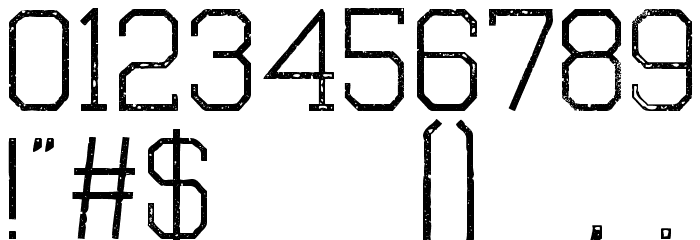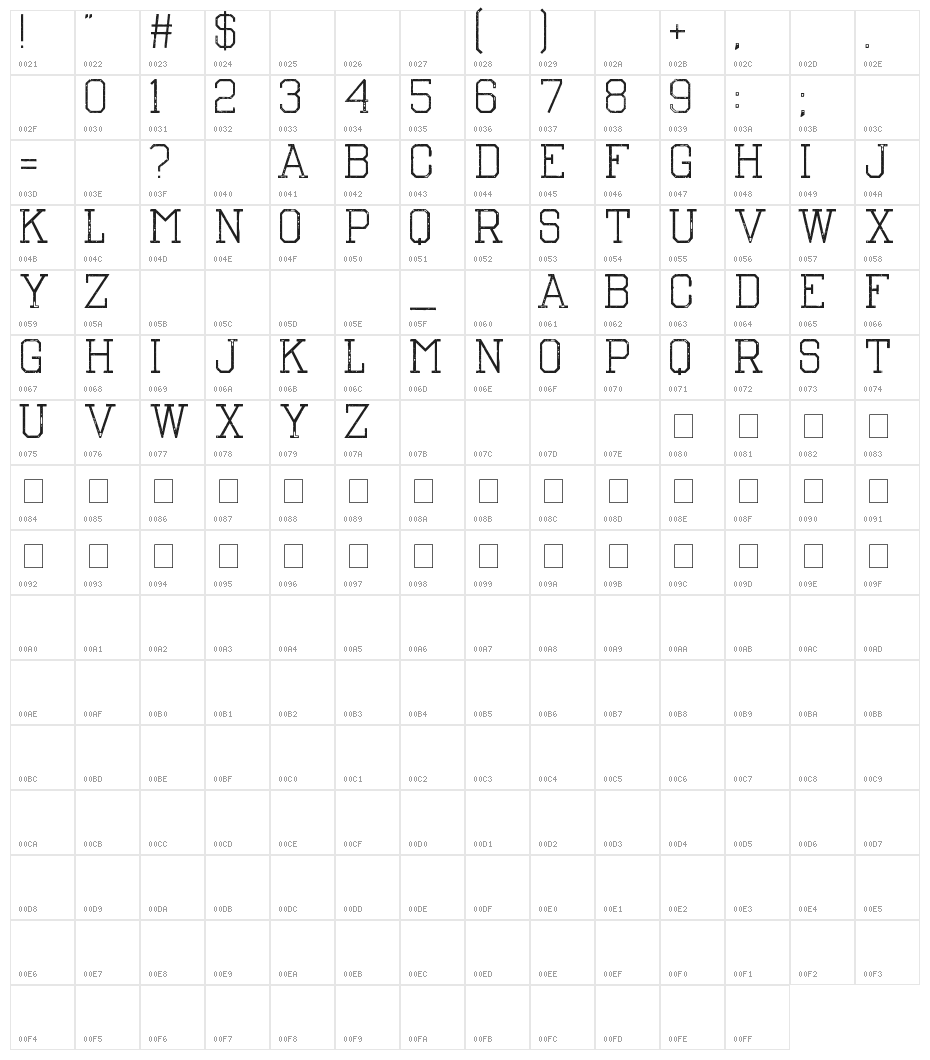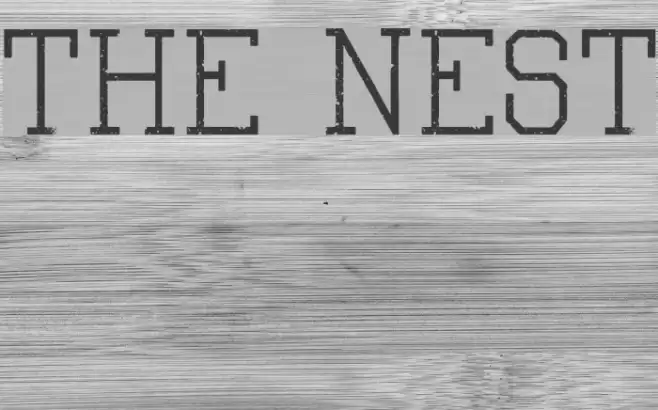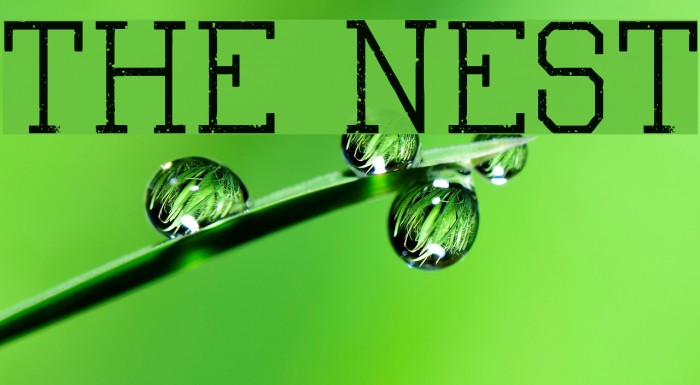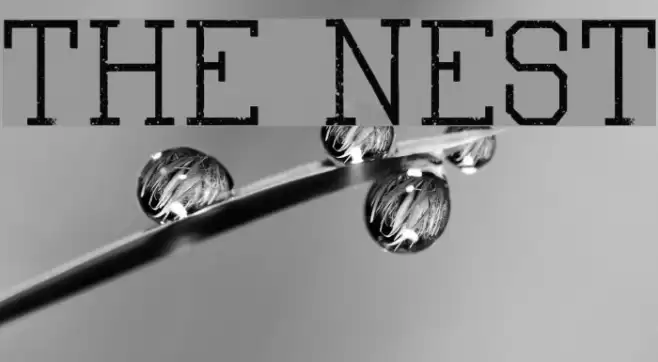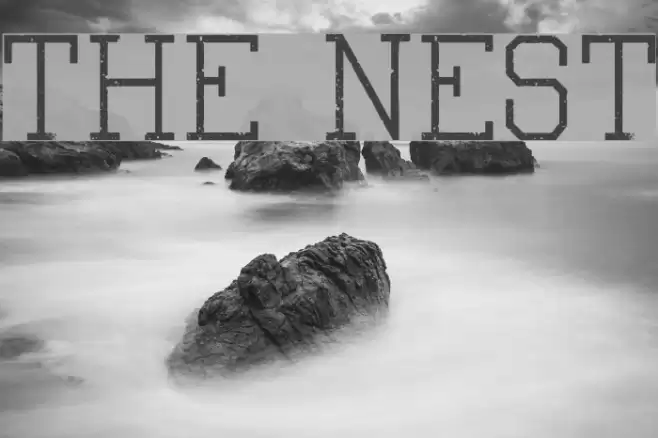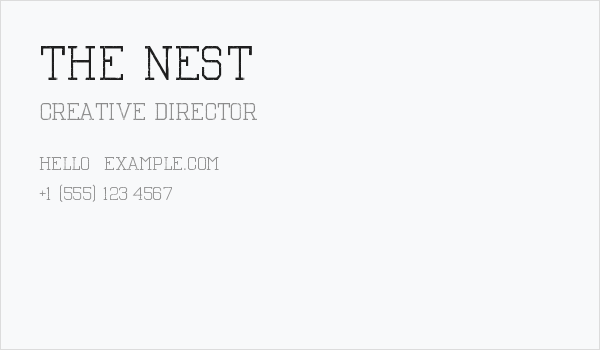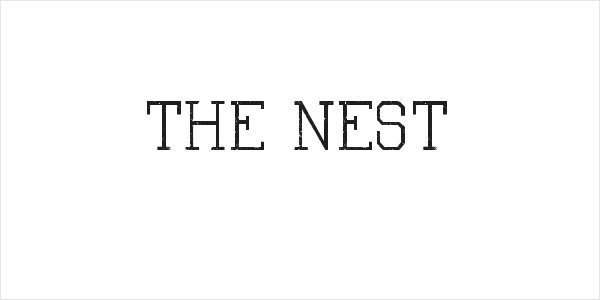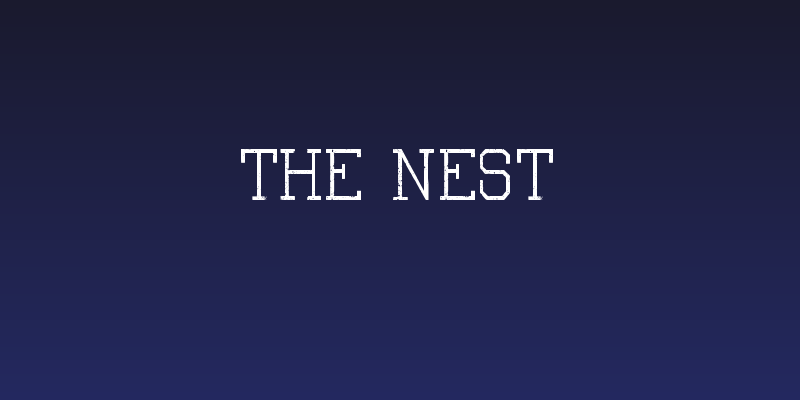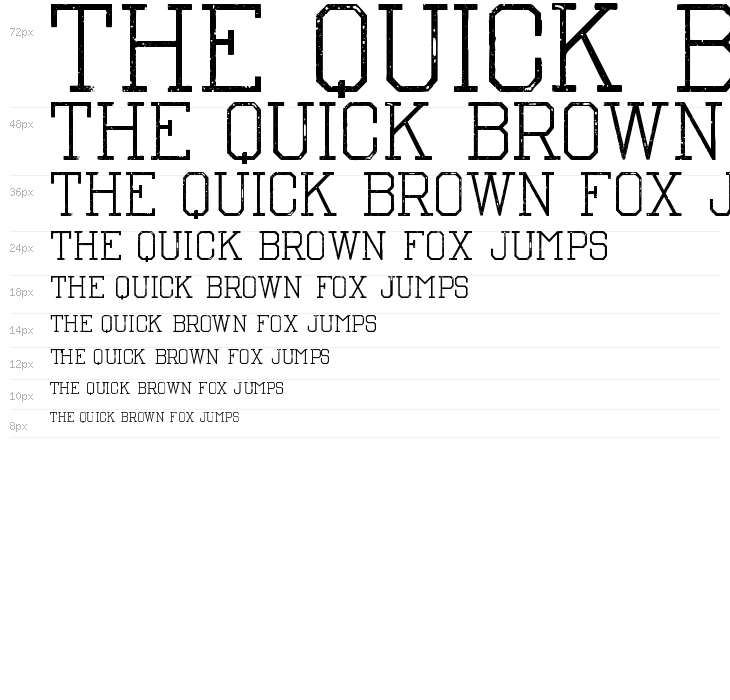
The Nest Font
The Nest Description
This font exhibits a rugged, distressed appearance with a vintage feel. The characters are bold and have a textured, worn-out look, reminiscent of old typewriter or newspaper prints. The uppercase and lowercase letters maintain a consistent style, with sharp edges and a slightly condensed form. Numbers and special characters follow the same distressed pattern, adding to the overall cohesive aesthetic. The font's unique style makes it stand out, ideal for projects that require a touch of nostalgia or a rustic vibe.
| Proposed Projects | Ideal for vintage-themed posters, rustic branding, retro advertisements, and creative design projects that seek an aged or industrial look. |